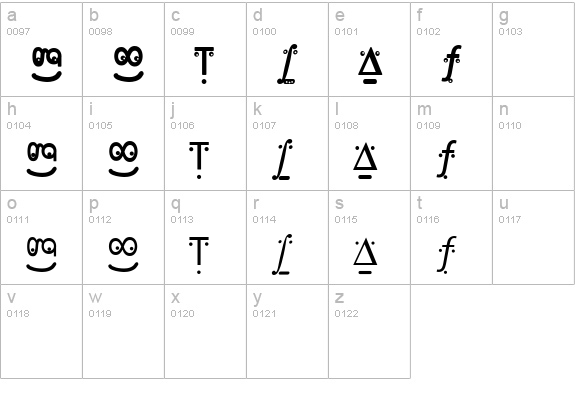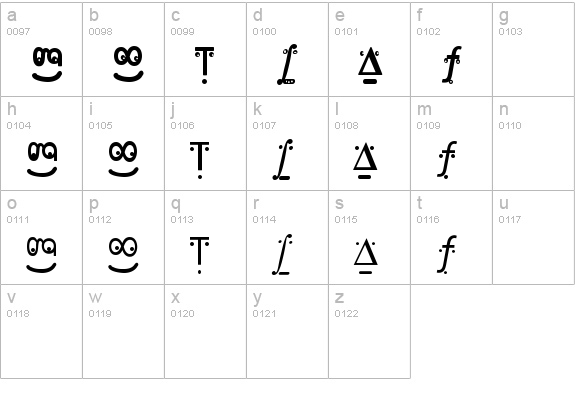
FranKleinFaces Font Details
Introducing FranKleinFaces, a versatile and stylish font that is sure to make your designs stand out. This unique typeface features a modern and edgy look, perfect for adding a touch of creativity to any project. With its sharp lines and sleek design, FranKleinFaces is ideal for logos, branding, posters, and more. Best of all, FranKleinFaces is available for free download at FontsMarket.com. That's right, this amazing font can be yours at no cost, allowing you to elevate your designs without breaking the bank. Don't miss out on the opportunity to add FranKleinFaces to your font collection today and take your projects to the next level!